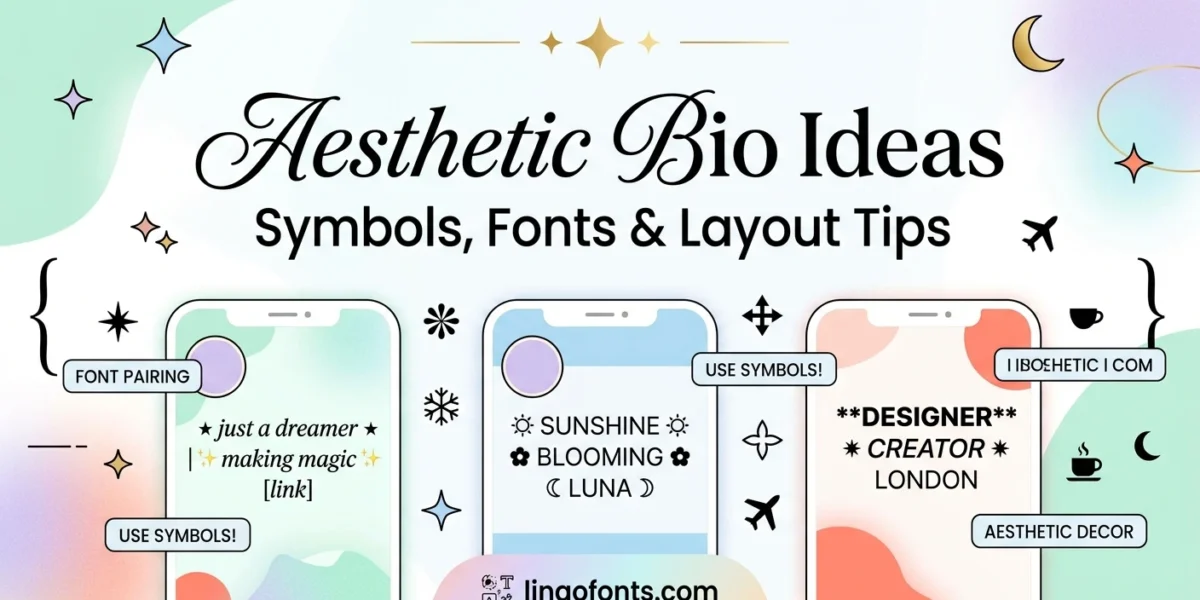
An “aesthetic” bio isn’t about cramming in more — it’s about a few well-chosen elements working together: a stylized name, one or two symbols used consistently, and enough white space that the whole thing reads cleanly instead of looking cluttered. Here’s how to actually build an aesthetic bio, with real copy-paste symbols and the exact character limits you’re working with.
The Three Building Blocks of an Aesthetic Bio
- A styled name or title — run it through the Aesthetic Font Generator to turn your plain name into a stylized version
- Dividers and symbols — small Unicode characters that separate sections or add a consistent visual signature
- Line breaks and spacing — the thing most bios get wrong; empty lines cost characters but make everything easier to actually read
Aesthetic Bio Symbols & Dividers You Can Copy
Sparkles & stars: ✧ ⋆ ✦ ✩ ☆ ★ ⭑ ⭒
Hearts & florals: ♡ ❀ ✿ ❁ ☙
Dividers: ⋆。゚✩ · 。°✩ · ⸙͎ · ˚₊• · 𓂃
Arrows & brackets: ➶ ➴ ➵ · 「 」 · 『 』
Pick one or two symbol families for your aesthetic bio and stay consistent — a bio using sparkles, hearts, arrows, and brackets all at once reads as cluttered rather than curated. The aesthetic bios that actually look intentional repeat the same 2–3 symbols throughout.
A Simple Aesthetic Bio Layout That Works
Most aesthetic bio ideas follow the same basic shape, just with different symbols:
✧ [Stylized Name] ✧
[One-line tagline or vibe]
˚ ᵕ ˚ [interests, separated by dots]
➶ [link, if you have one]
Notice the structure: name on top, one line of context, a short interest list, link last. Each line has one job. That’s what makes an aesthetic bio scannable in the two seconds someone actually spends reading it.
Character Limits by Platform
- Instagram: 150 characters, including spaces and line breaks
- TikTok: 80 characters — the tightest of the three, so every symbol counts
- Discord (About Me): 190 characters, the same limit whether or not you have Nitro
Write your TikTok aesthetic bio version first. If a bio fits in 80 characters, it’ll fit everywhere else too — going the other direction means cutting content you’ve already gotten attached to.
Common Aesthetic Bio Mistakes to Avoid
The most common mistake with aesthetic bio ideas is treating the stylized Unicode name as searchable text — it isn’t. Platform search bars generally can’t match a stylized display name against a normal-text search, so if people need to find your account by name, keep your actual username in plain text and save the stylized version for your display name or bio only. The second mistake is symbol overload: three or four different decorative families in one aesthetic bio reads as noise, not style. The third is skipping line breaks entirely to save characters — a bio that’s technically shorter but unreadable as one dense block doesn’t actually perform better.
Aesthetic Bio Ideas by Vibe
Different aesthetics call for different symbol choices. A few real starting points:
- Soft / pastel: pair rounded symbols like ◥ ˚ ♡ with a script-style name from the Cursive Generator for a gentle, muted look
- Dark / moody: gothic or blackletter styles from the Fancy Text Generator paired with sparse dividers read as intentional rather than cluttered
- Y2K / cybercore: brackets, arrows, and bold sans styles from the Bold Text Generator pair well with sharp, geometric symbols
- Minimal: skip decorative fonts entirely and lean on spacing and a single divider — restraint is its own aesthetic
The common thread across every one of these aesthetic bio ideas is restraint: pick a vibe, pick symbols that match it, and stop there. Mixing pastel hearts with gothic blackletter in the same bio undoes the effect of either.